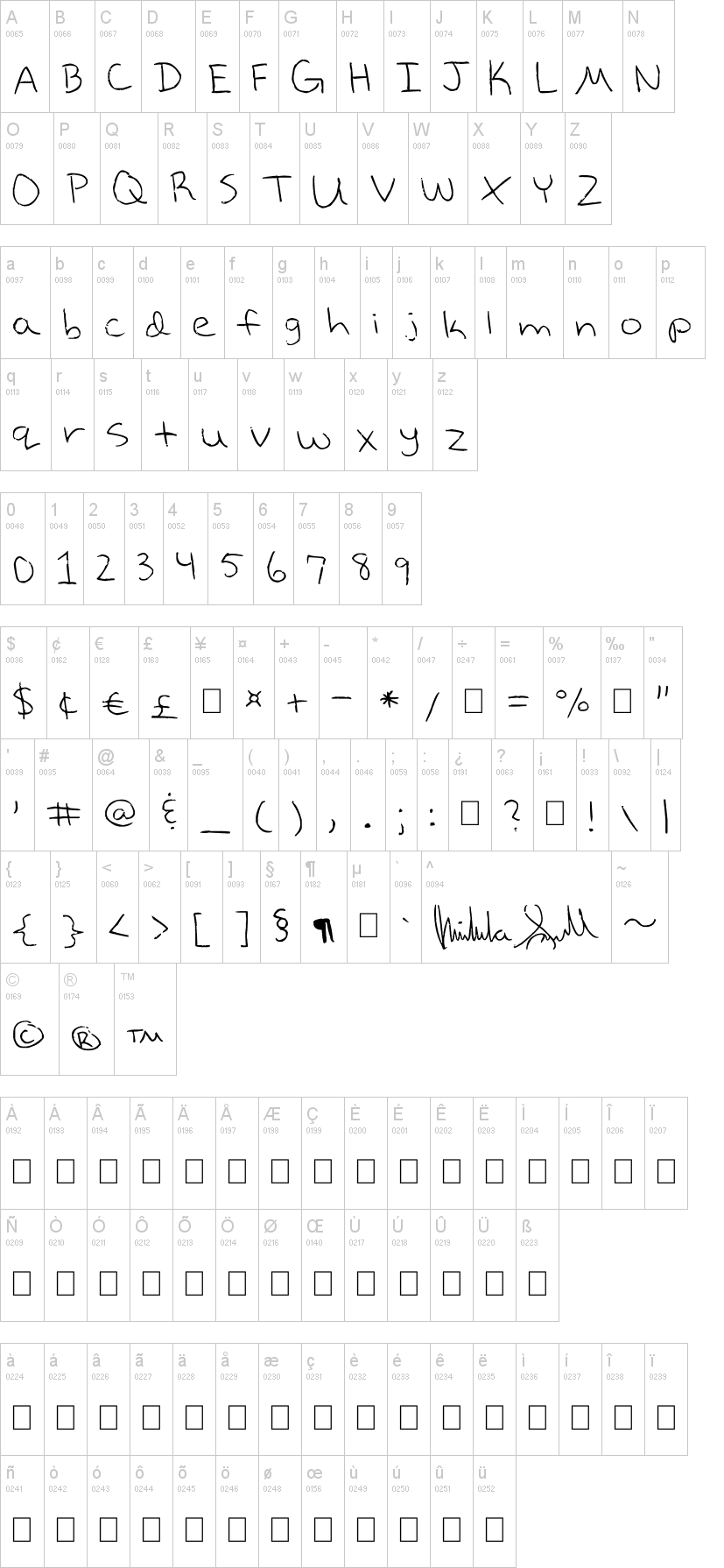
Note of the authorThis font is a neater version of my handwriting (which my friends lovingly call "upside-down chicken scratch Arabic"). The template I used to make this font was found on yourfonts.com.